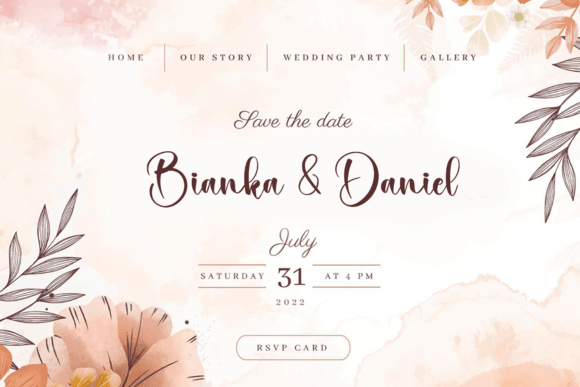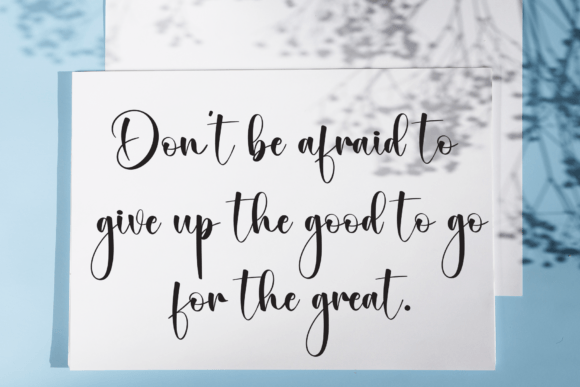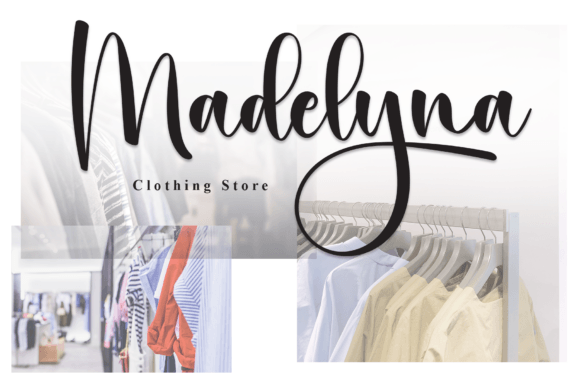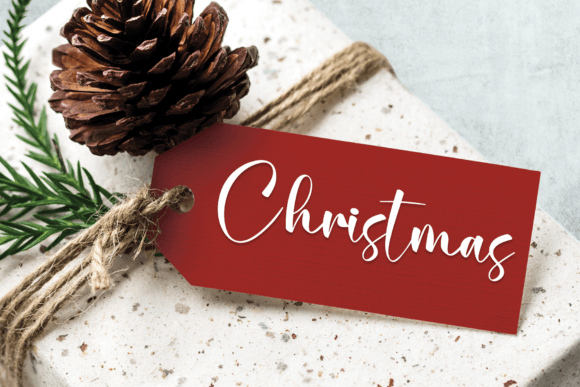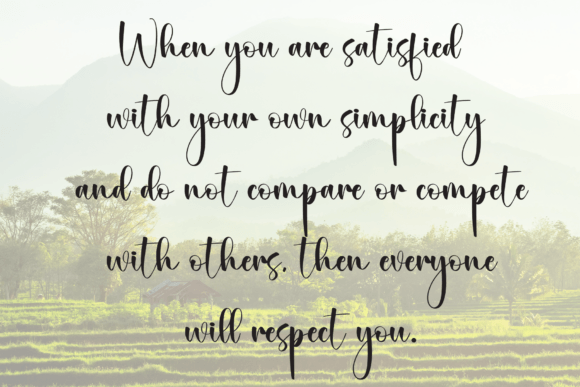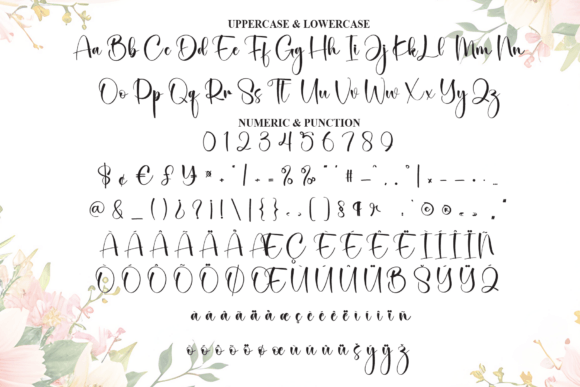
Discover the Charming Angela Font: Add a Personal Touch to Your Designs
Are you looking for a typeface that exudes warmth and friendliness? Look no further than the Angela font. This charming and casual font is perfect for designers and crafters who want to add a personal touch to their projects. In this article, we’ll dive into the unique features of the Angela font, its uses, and why it’s a great addition to your typography collection.
What is the Angela Font?
The Angela font is a hand-written typeface that boasts an uneven, natural flow. Its casual and relaxed appearance makes it look like it was written by hand, giving it a warm and cozy feel. The font features subtle imperfections and variations in lettering, which add to its charm and character.
Unique Features of the Angela Font
- Handwritten appearance: The Angela font has a genuine handwritten look, making it perfect for designs that require a personal touch.
- Uneven letters: The font features uneven letters, which give it a natural and relaxed appearance.
- Natural flow: The letters in the Angela font flow smoothly into each other, creating a sense of continuity and harmony.
- Warm and friendly feel: The font’s casual and relaxed appearance makes it perfect for designs that require a warm and friendly feel.
Uses of the Angela Font
The Angela font is versatile and can be used in a variety of projects, including:
- Personal projects: The font’s casual and relaxed appearance makes it perfect for personal projects, such as scrapbooking, journaling, and crafting.
- Invitations: The Angela font is ideal for invitations, such as wedding invitations, birthday party invitations, and baby shower invitations.
- Signage: The font’s clear and readable appearance makes it suitable for signage, such as store signs, menus, and posters.
- Digital designs: The Angela font can be used in digital designs, such as social media graphics, blog posts, and email newsletters.
Why Choose the Angela Font?
There are several reasons why the Angela font is a great choice for designers and crafters:
- Unique and distinctive: The Angela font has a unique and distinctive appearance that sets it apart from other typefaces.
- Easy to read: Despite its handwritten appearance, the Angela font is easy to read and clear.
- Versatile: The font can be used in a variety of projects, from personal projects to commercial designs.
- Adds a personal touch: The Angela font adds a personal touch to designs, making them more relatable and engaging.
Tips for Using the Angela Font
Here are some tips for using the Angela font effectively:
- Use it sparingly: Use the Angela font sparingly to add emphasis and create visual interest.
- Pair it with other fonts: Pair the Angela font with other fonts to create contrast and add visual interest.
- Pay attention to spacing: Pay attention to spacing and kerning to ensure that the text is clear and easy to read.
The Angela font is a charming and casual typeface that adds a personal touch to designs. Its unique features, versatility, and ease of use make it a great addition to any designer’s or crafter’s typography collection. Whether you’re working on a personal project or a commercial design, the Angela font is sure to bring a warm and friendly feel to your work.